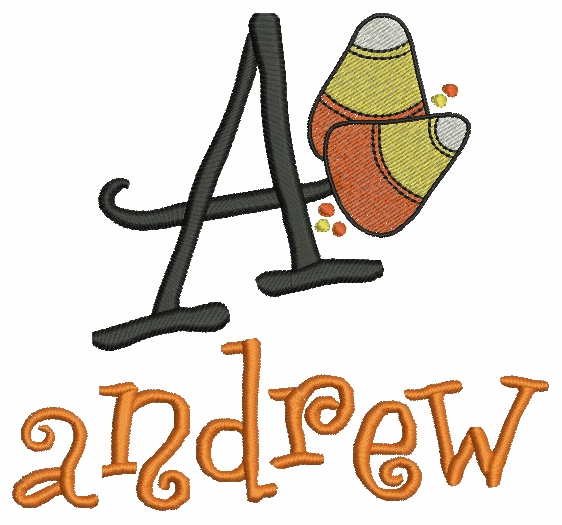
No 104 Halloween Monogram Font Machine Embroidery Designs 3.5 inch high
This set contains 52 designs:
• 26 Uppercase Letters with alternating Halloween designs (Halloween Cat, Candy Corn and Pumpkin) ~ between 2.78" and 3.80" high
• 26 Lowercase Letters ~ between .80" and 1.91" high
Designed as a Large Letter Monogram with Smaller Name - stack on top or under